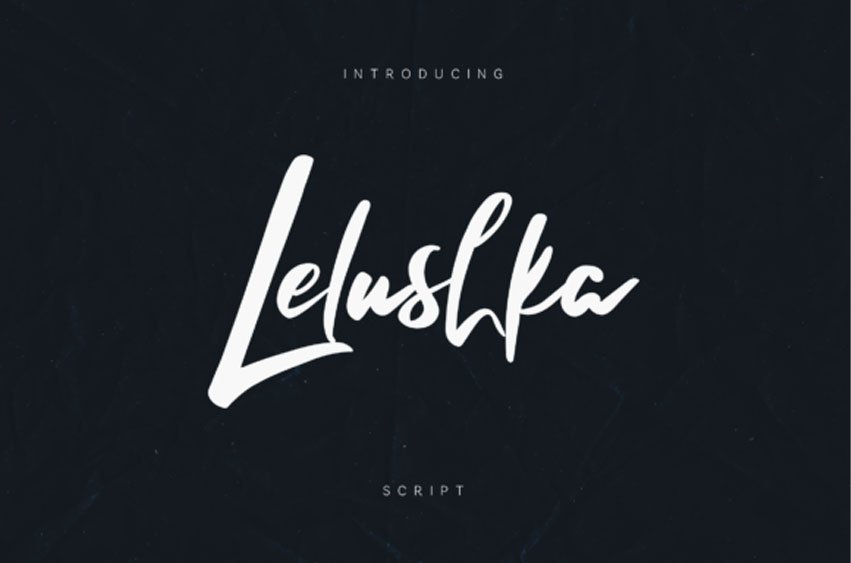
Lelushka Font
Lelushka Font is a flowing handwritten script typeface designed to capture the natural rhythm and movement of real handwriting. Lelushka is ideal for projects where typography needs to feel friendly, expressive, and visually engaging. The flowing structure allows words to connect beautifully, making the font particularly effective for titles, logos, creative layouts, and modern visual compositions.
With its fluid strokes and expressive handwritten style, Lelushka adds warmth, personality, and movement to modern typography projects.